Hip hop fonts are typefaces created using stylized letterforms inspired by graffiti writing. This style of fonts brings a chaos or imbalance and spray over your t-shirt designs or wall art. They usually incorporate graffiti-inspired graphics, colors, and often bold font styles that give an impactful visual expression to any text element.
PopWave Font
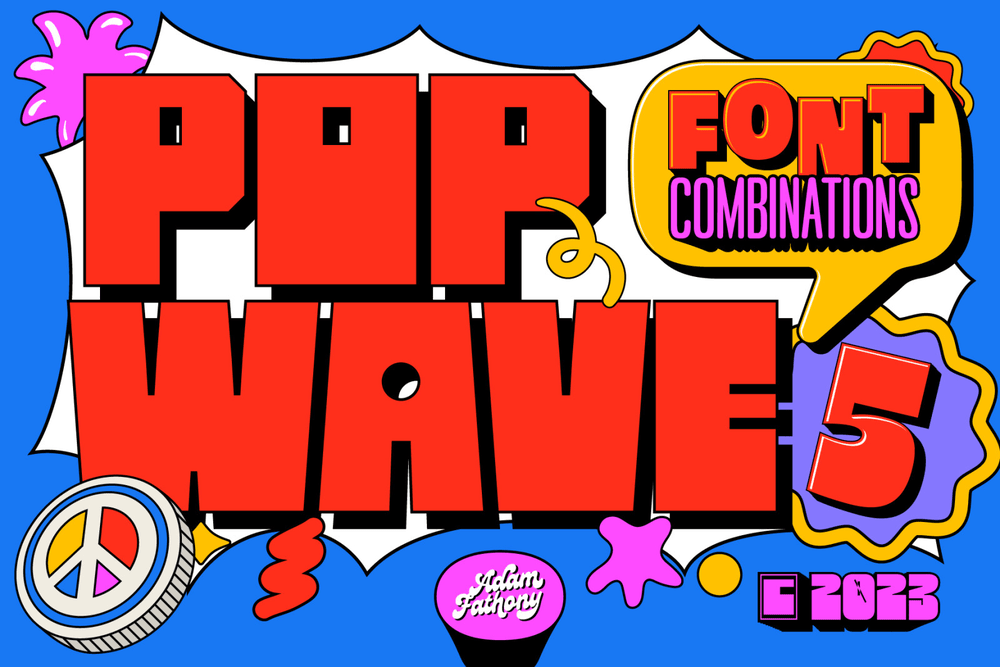
A vibrant and playful font pack containing 5 unique fonts that are perfect for adding a touch of modern pop and groovy style to your designs.
Permanent Park
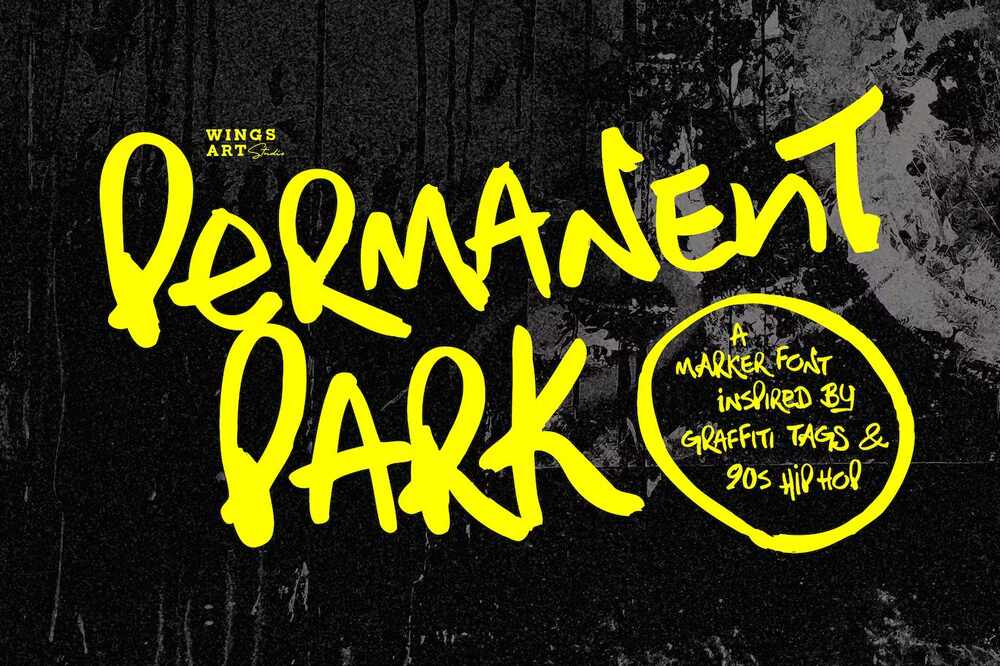
It is a marker pen font with a graffiti tag aesthetic inspired by the golden-age of Hip Hop. Ideal for posters, movie titles, product packaging, broadcast and advertising.
Burnt Maker
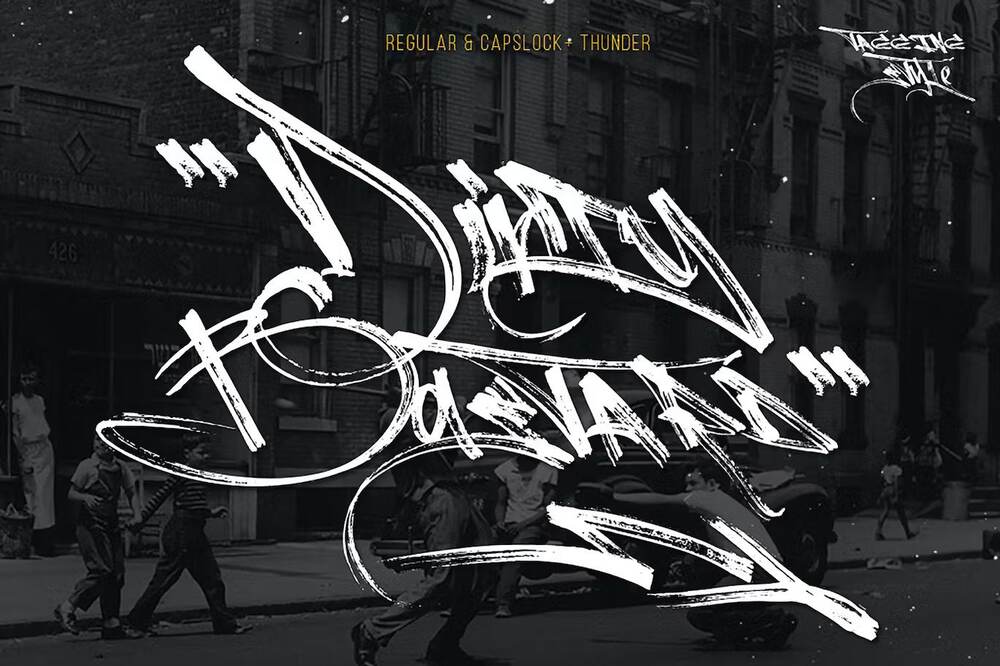
This font was born from vandals, boomber, street art, fast technique about writing, hip-hop, gravity, very suitable for music promotions, cover albums, gigs or anything else.
Sigmatone
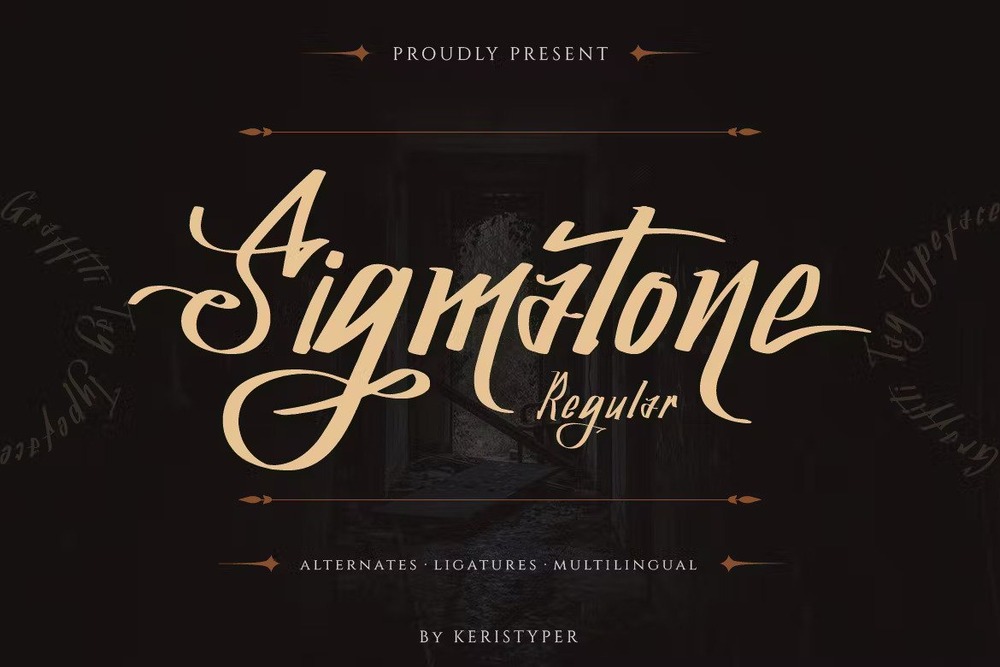
Inspired by old school graffiti tagging and street art. So good going for your designs such as logo designs, social media, movie titles, books titles, short text even long text letters and more.
Minority
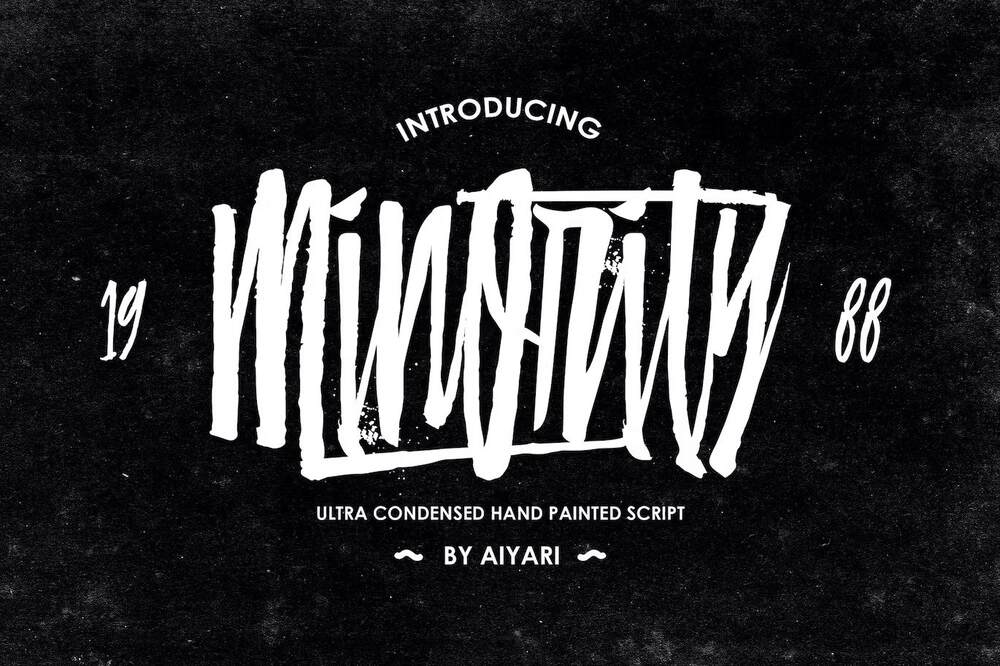
A hand painted script inspired by condensed typeface and hand lettering typography. So perfect for logos, apparel designs, invitations, flyers, posters, greeting cards, product packaging and etc.
Heaven Spot
It is a modern graffiti typeface inspired by street art and underground hip hop music. Incredible for wall art, headlines, album covers, social media posts, logos, posters, packaging and etc.
DirtySick
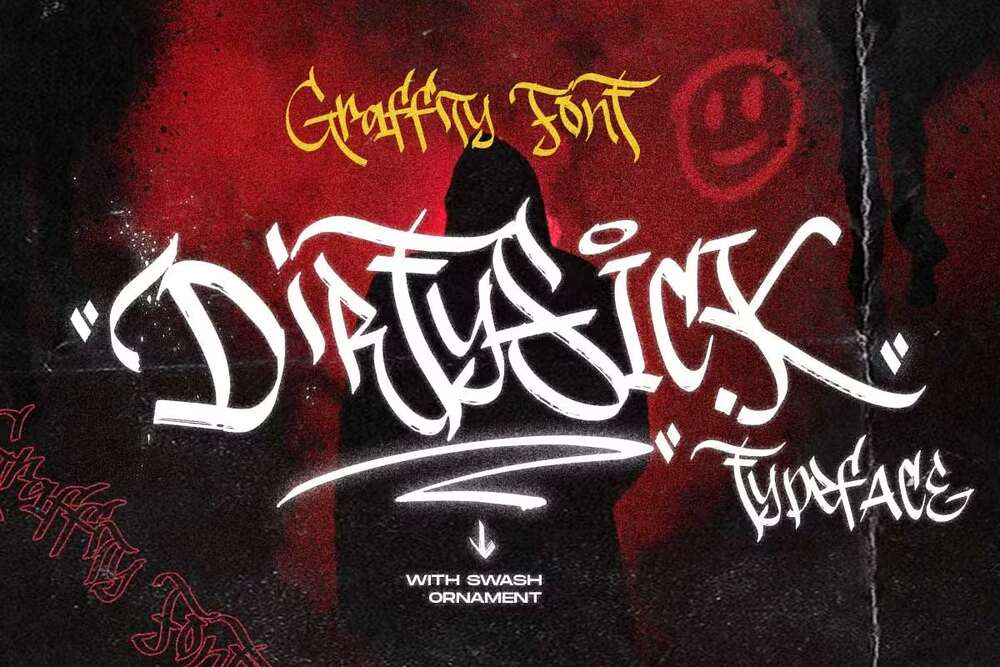
It is inspired from graffiti tag in urban city, to create the beautiful art combinations such as logos, lettering, packaging, posters and etc.
Styleturn
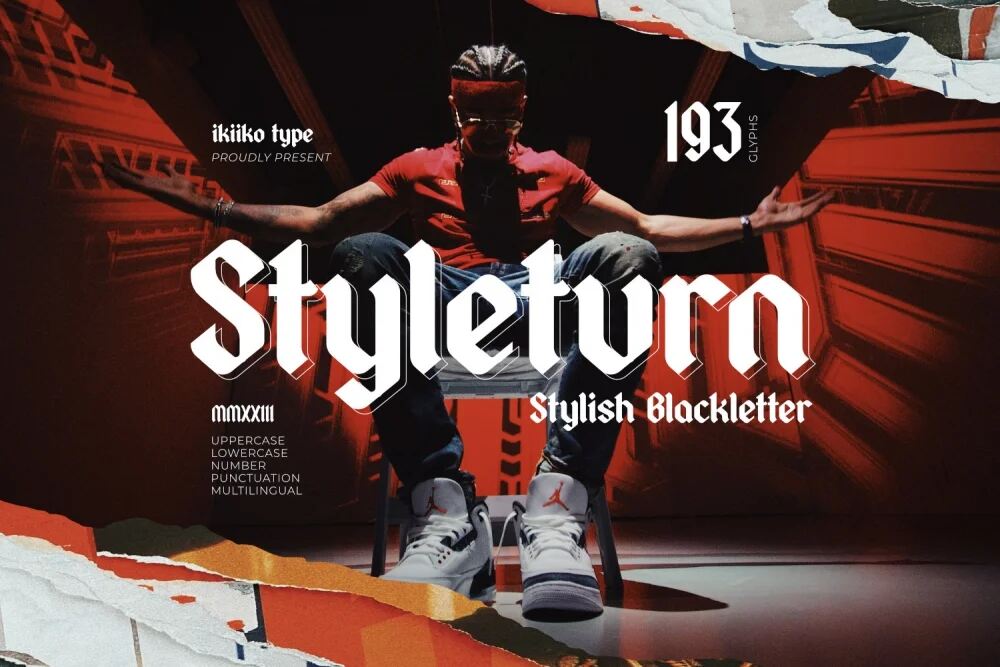
It is an stylish blackletter font with a more minimalist and modern form. Ideal for making a posters, magazine layouts, brand logos, sleeve covers, party flyers and etc.
Shizzle
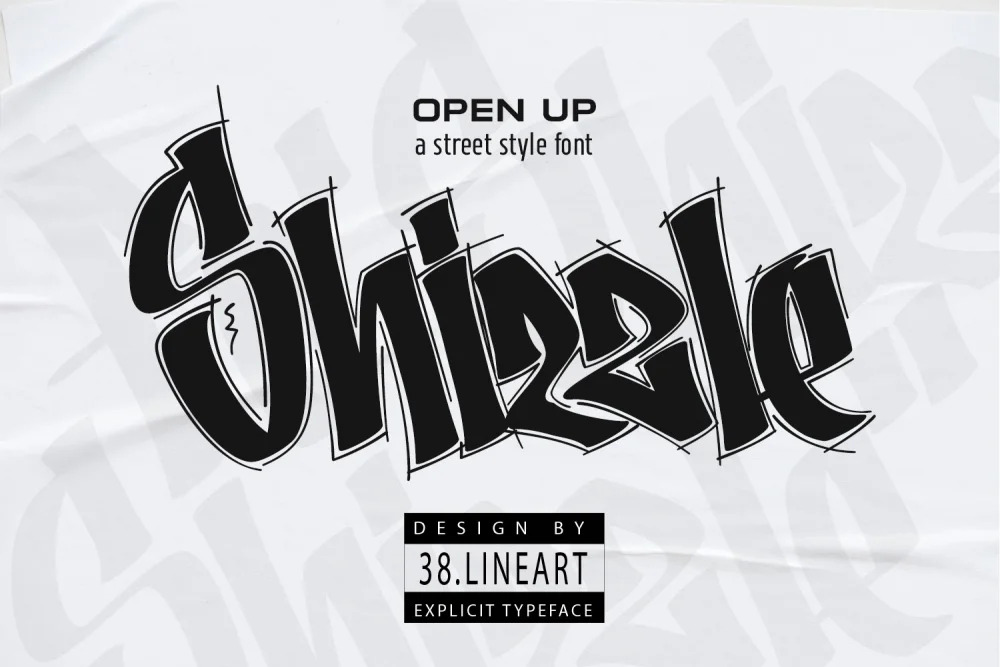
It is a font with a graffiti marker style. So ideal for designs such as street art, street wear designs, t-shirts, covers, posters and etc.
Brockers Urban
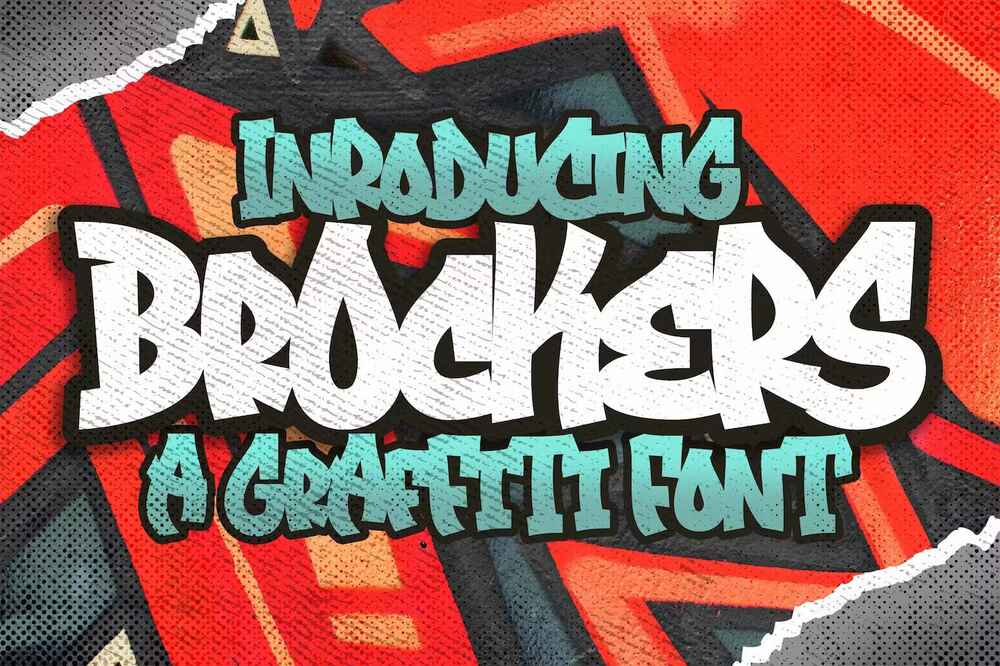
The font inspired by graffiti style with a fun theme, very good for graffity posters, hip hop music covers, kids posters, flyers, children books, cartoon, comic and etc.
Bozart
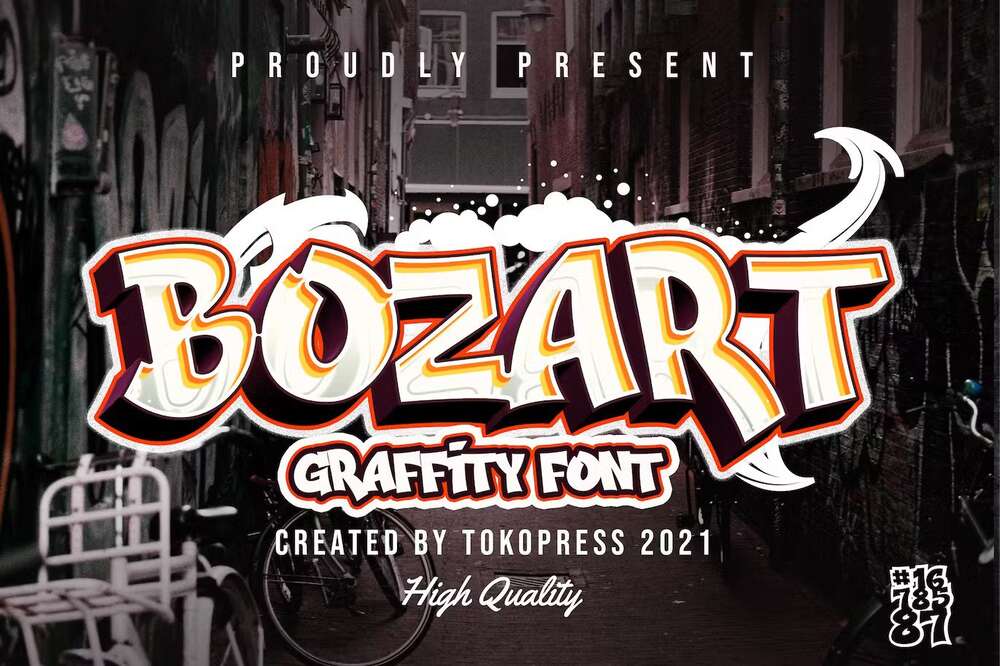
An attractive street art graffiti font that is going good for magazines, posters, movie titles, music posters, youtube covers and etc.
Westcoast
A gangster style display typeface so good going for your designs such as tattoo, logos, shirt designs, posters, branding and etc.
Free Knight Brush
Inspired by the vintage era when sign painting was take as very important part for creating storefront signboard, branding and promotional ads on the street. Ideal for posters, t-shirt designs and etc.
Trashbone
A playful marker font, designed with an additional rusty effect applied to the strokes. Recommended for many themes such as sports, dark, teen, movement, adventure and etc.
New Kids Crew
It is a raw and expressive brush font with touch of street style. So perfect going for posters, magazine layouts, brand logos, sleeve covers, party flyers, quotes and etc.
Madison Street
A street art graffiti typeface so good going for designs such as hip-hop, rebelious and extreme sport segmented magazines, posters, movie titles, music posters, youtube covers and etc.
Kingston
A handwritten font with a high detailed dry brush texture. Perfect for business branding, instagram quotes, blog headers, fashion apparel, stationery and more.
Lebron Slab
It is strong and vibrant typeface. Excellent for headlines, captions, brand logos, street gear, t-shirts, school & university etc.
Trainidath
It is an urban font with graffiti style. So perfect for designs such as hip hop lettering, wall art, t-shirt designs and etc.
Fredyn
A street art hip hop related font for designs such as logos, wall art, apparel branding, team logos and many more.
Nutshell Crew
It is a rough handwriting type inspired by hand-drawn street brushes. Suitable for making a streetwear brand, posters or magazine layouts, album covers, quotes and etc.